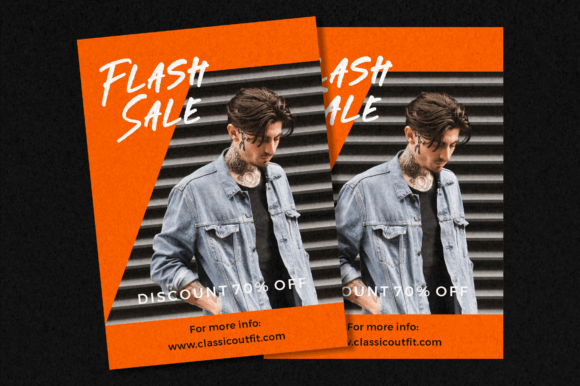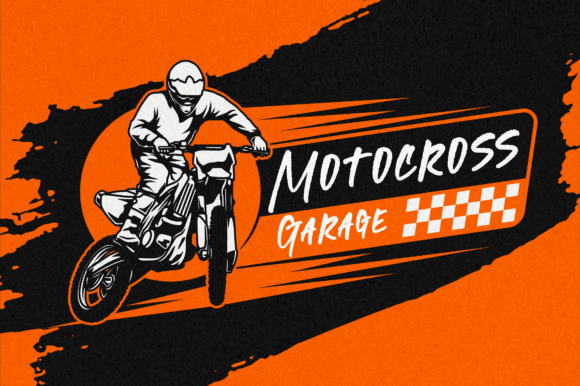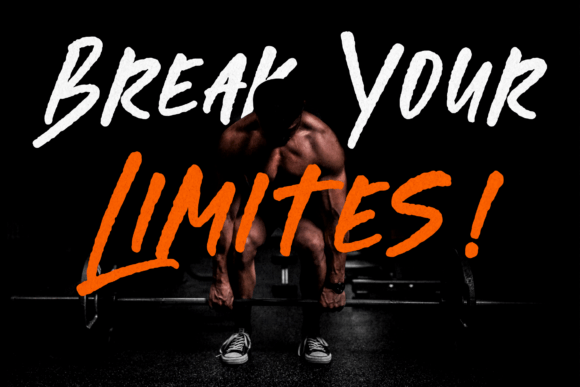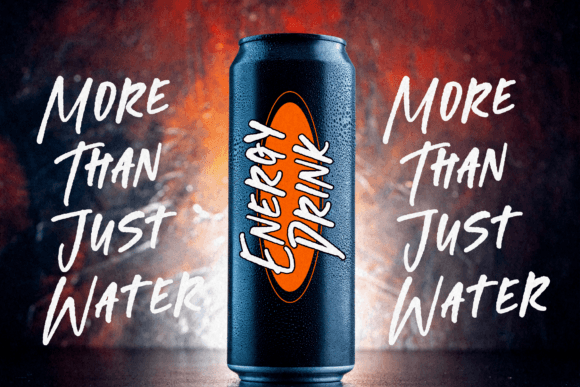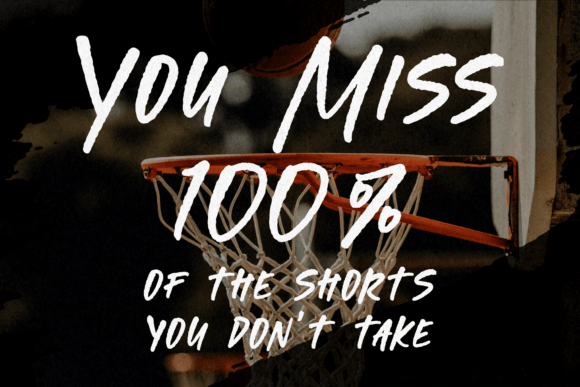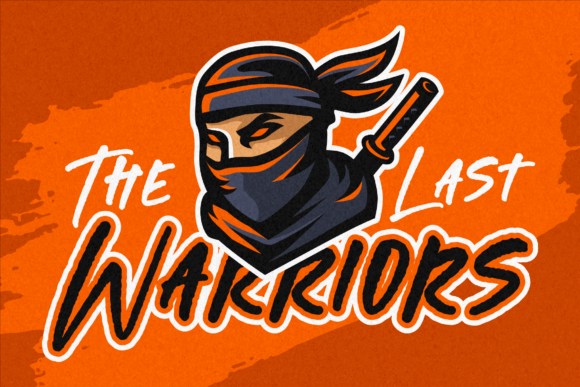
Introduction to Morbides Junky Font
Remember the thrill of stumbling upon the perfect font for your project? The one that elevates your design from ordinary to extraordinary? That’s exactly what we’re about to dive into – Morbides Junky Font, a stunning handbrush display font that’s sure to captivate your audience.
As designers, we’re constantly on the lookout for high-quality fonts that can breathe life into our creative projects. Morbides Junky Font, designed by Glorytype Studio, is a game-changer. With its beautiful script taste and transparent background, this font is perfect for logos, branding projects, and even homeware designs. And the best part? It’s available for free download, making it an invaluable design resource for designers of all levels.
Key Features of Morbides Junky Font
- High-quality design: Morbides Junky Font offers a unique and creative typography solution for various design projects.
- Transparent background: This font features a transparent background, making it perfect for use on various design elements and backgrounds.
- Large character set: Morbides Junky Font includes a large character set, including uppercase and lowercase letters, numbers, and special characters.
- High-resolution design: The font is designed at a high resolution, making it perfect for use in large-scale designs and creative projects.
- Perfect for creative projects: Morbides Junky Font is ideal for use in various creative projects, including graphic design, digital art, and typography-based designs.
Honest Review: Morbides Junky Font
I recently had the opportunity to work with the Morbides Junky Font for a design project, and I must say it’s a unique addition to my design resources. The high quality of the font is immediately noticeable, with intricate details and a quirky aesthetic that adds a touch of personality to any creative project.
One of the standout features of the Morbides Junky Font is its transparent background, which makes it easy to layer over other design elements without any issues. This is especially useful for designers who value flexibility and creative freedom.
Here are some of the things that work well with the Morbides Junky Font:
- ✨ Unique and quirky aesthetic that adds personality to designs
- ✨ High quality and intricate details
- ✨ Transparent background for easy layering
- ⚠️ Limited font size options, which can make it difficult to use for large-scale text
- ⚠️ Not ideal for formal or professional designs, due to its playful aesthetic
Overall, I’m impressed with the Morbides Junky Font and would definitely recommend it to designers looking for a unique and creative resource. Just be aware of its limitations and use it thoughtfully in your designs.
Morbides Junky Font is commonly used in creative projects that require a high quality, unique font. It’s perfect for designing posters, flyers, business cards, and any other design element that requires a touch of elegance.
Alternatives to Morbides Junky Font
Great Vibes Font is a high-quality, handwritten font perfect for creative projects requiring a touch of elegance. It’s ideal for use in wedding invitations, greeting cards, and other design elements where a personal touch is needed. Great Vibes Font offers a free download option, making it an excellent design resource for designers on a budget.
When compared to Morbides Junky Font, Great Vibes Font has a more refined and sophisticated look, making it suitable for a wider range of design applications. While Morbides Junky Font has a more distressed, grungy feel, Great Vibes Font is better suited for projects requiring a more polished appearance.
How do I apply a transparent background to the Morbides Junky Font?